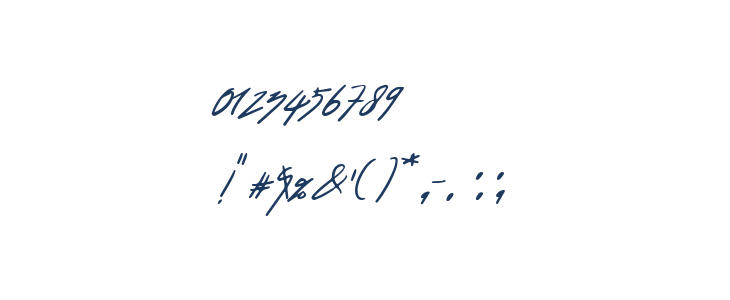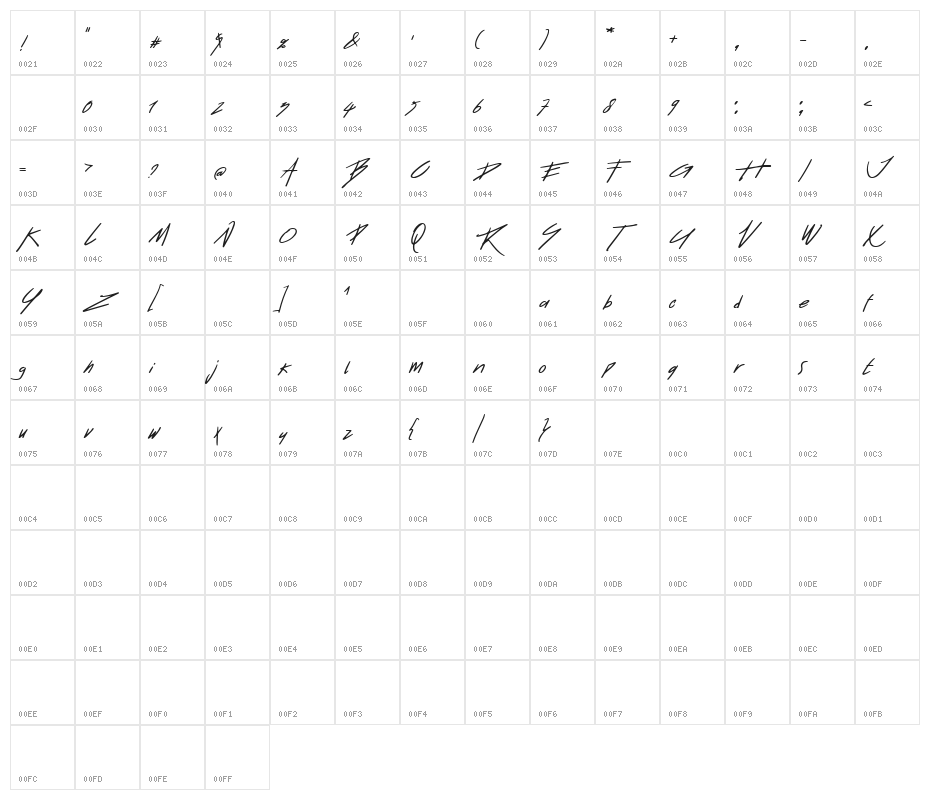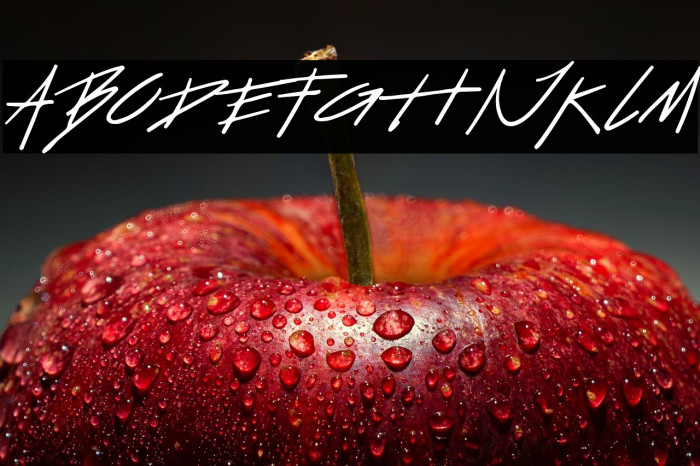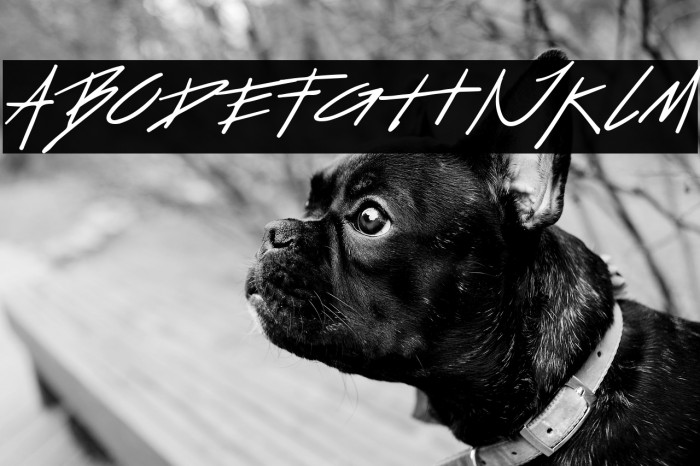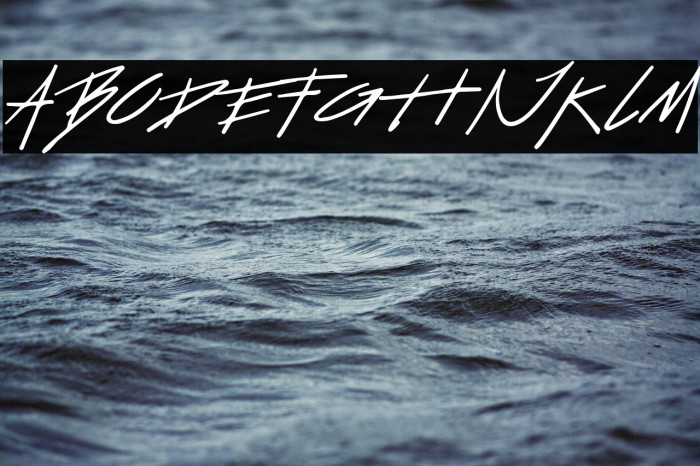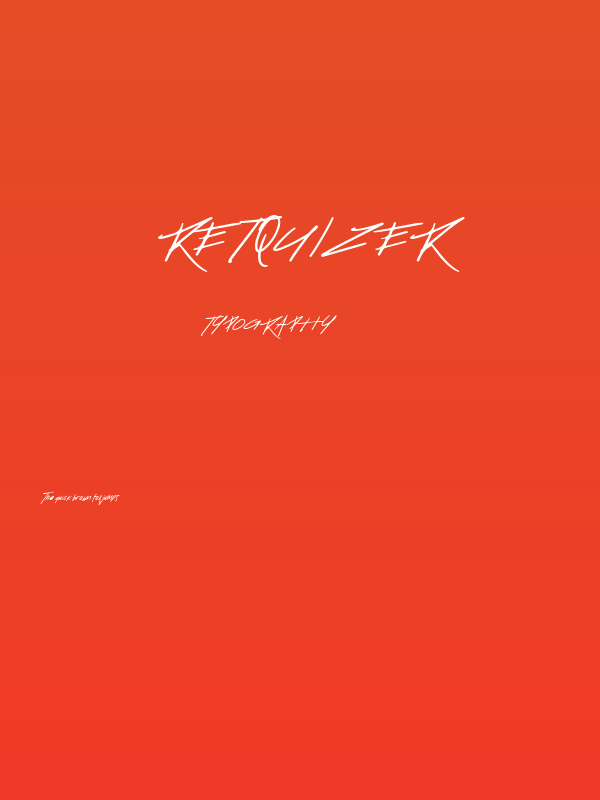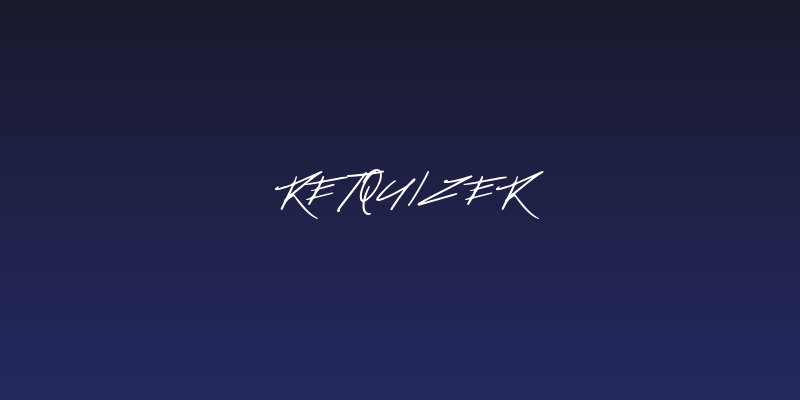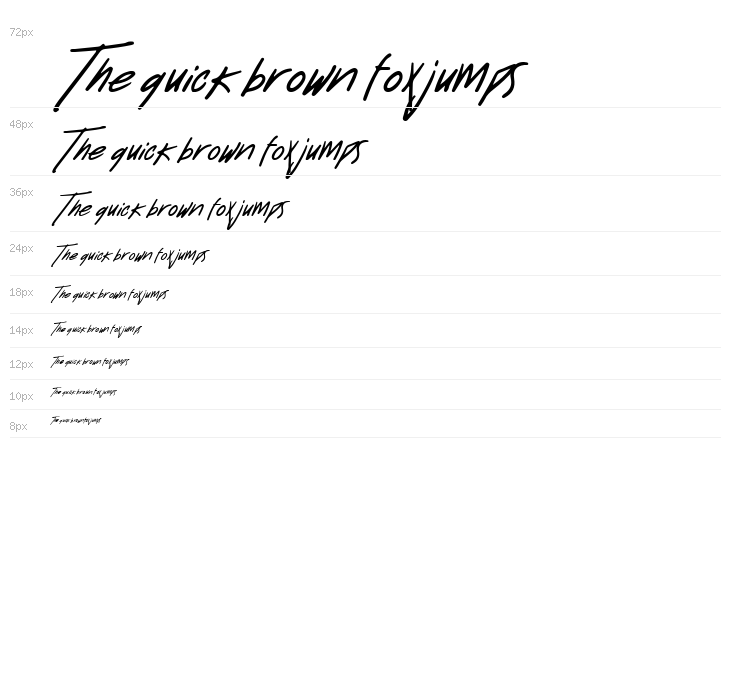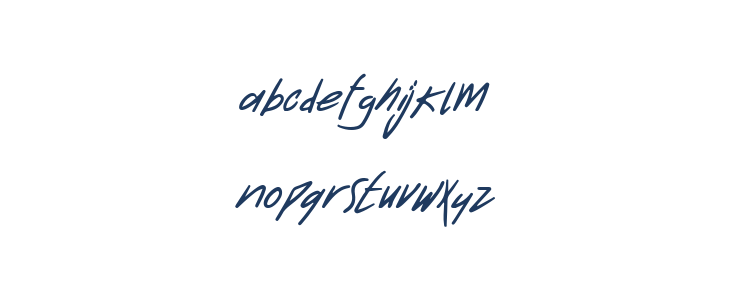
Retquizer Font
Retquizer Description
This font features a dynamic and energetic handwritten style, characterized by its fluid and slightly erratic strokes. The uppercase letters are bold and expressive, with a noticeable slant that adds a sense of movement and urgency. The lowercase letters maintain a consistent flow, complementing the uppercase with their slightly more restrained yet equally lively appearance. Numbers and special characters follow the same energetic style, ensuring a cohesive look across all elements. The overall impression is one of spontaneity and creativity, making it ideal for projects that require a personal touch or a sense of informality.
| Use Case | Logos, Headlines, Artistic projects |
| Proposed Projects | Ideal for creative projects, personal branding, informal invitations, and artistic posters. |